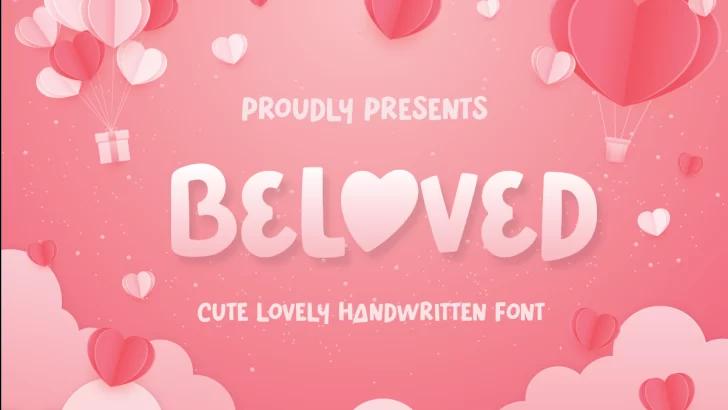
TOP 10 BEST FONTS FOR VALENTINE’S DAY
Valentine’s Day is not just a celebration of love but also an opportunity for designers and creatives to express emotions through their work. The choice of font plays a pivotal role in conveying the right sentiment. Whether you’re designing a heartfelt card, an event invitation, or promotional materials, selecting the perfect Valentine’s Day font can elevate your design from ordinary to extraordinary. In this article, we explore the top 10 fonts that embody the spirit of love and romance, ensuring your Valentine’s Day projects leave a lasting impression.
Why Font Choice Matters on Valentine’s Day
Typography is more than just selecting pretty fonts; it’s about evoking emotions and creating connections. On Valentine’s Day, the right font can convey feelings of love, passion, and tenderness. It can set the tone for your message, making it resonate more deeply with your audience. From elegant scripts that mimic handwritten love letters to playful typefaces that capture the joy of love, the right font choice can significantly impact your Valentine’s Day designs.
Top 10 Best Fonts for Valentine’s Day
Andara – Luxury Classy Love Font
A Luxury Love Font that we created special for elegant branding needs, with unique shape will be ready to add value of your brand.
Loves – Romantic Funny Love Font
A Love Valentine Romantic font that we created special for lovely moment needs, like valentine and kids branding with extra unique characters will be ready to add value of your brand. It so nice to leverage designer or product owner that need solutions to make their design look more lovely and funny. And specially for Loves font, We prepared any unique characters to help you create unlimited variations for your creative needs.
Ralita – Modern Feminine Curly Font
A Luxury Modern Feminine Curly Font that we created special for elegant branding needs, with unique shape will be ready to add value of your brand. It so nice to leverage designer or product owner that need solutions to make their design look more stylish and modern. And specially for Ralita font, We prepared any characters to help you create unlimited variations for your creative needs.
Manyfit – Classy Elegant Luxury Font
A Classy Elegant Luxury font that we created special for elegant branding needs, with unique shape will be ready to add value of your brand. It so nice to leverage designer or product owner that need solutions to make their design look more stylish and modern. And specially for Manyfit font, We prepared any characters to help you create unlimited variations for your creative needs.
Just Love – Cute Unique Playful Handwritten Font
Just Love is A Playful Handwritten Font with cute and beauty style and so charming. This font specially crafted for your branding, quotes design projects or cute logo, unique, modern for any designs such as print, merchandise, and so many more with easy to use but unique results are so playful. Enjoy to Design any your needs with cute and playful feel.
Romantic – Modern Beauty Sans Serif Font
A Sans Serif font that we created special for branding needs with classy shape to add value of your brand. It’s so nice to leverage designer or product owner that need solutions to make their design look more classy and fashionable. And specially for Romantic font, We prepared any characters with Elegant shape to help you create classy style of your design.
Malfin – Love Luxury Cursive Serif
A Luxury Cursive Serif font that special for show the display or headline with love and fancy style will be ready to add value of your brand. It so nice to leverage designer or product owner that need solutions to make their design look more stylish and modern. And specially for Malfin font, We prepared any characters to help you create unlimited variations for your creative needs.
Beloved – Cute Lovely Valentine K-Pop Unique Font
A new font that we created special for branding needs, with unique characters and awesome alternative characters are ready to add value of your brand. It so nice to leverage designer or product owner that need solutions to make their design look more beauty and modern.
Gemonica – Experimental Serif Font
A new font that we created special for branding needs, with unique characters and awesome alternative characters are ready to add value of your brand. It so nice to leverage designer or product owner that need solutions to make their design look more beauty and modern. And specially for Salute font, We prepared any swash and any alternate characters to help you create unlimited variations for your creative needs.
Brand – Lovely Elegant Font
A well-balanced contemporary font with a fancy, unique, and versatile vintage serif, font that you can combine to get any variations and unique shapes easily just in seconds with choose alternates of them. It is a serif display font with moderate contrast that perfect for branding projects, logo, wedding designs, social media posts, advertisements, product packaging, product designs, label, photography, watermark, invitation, stationery, and any projects, it makes with a high level of legibility.